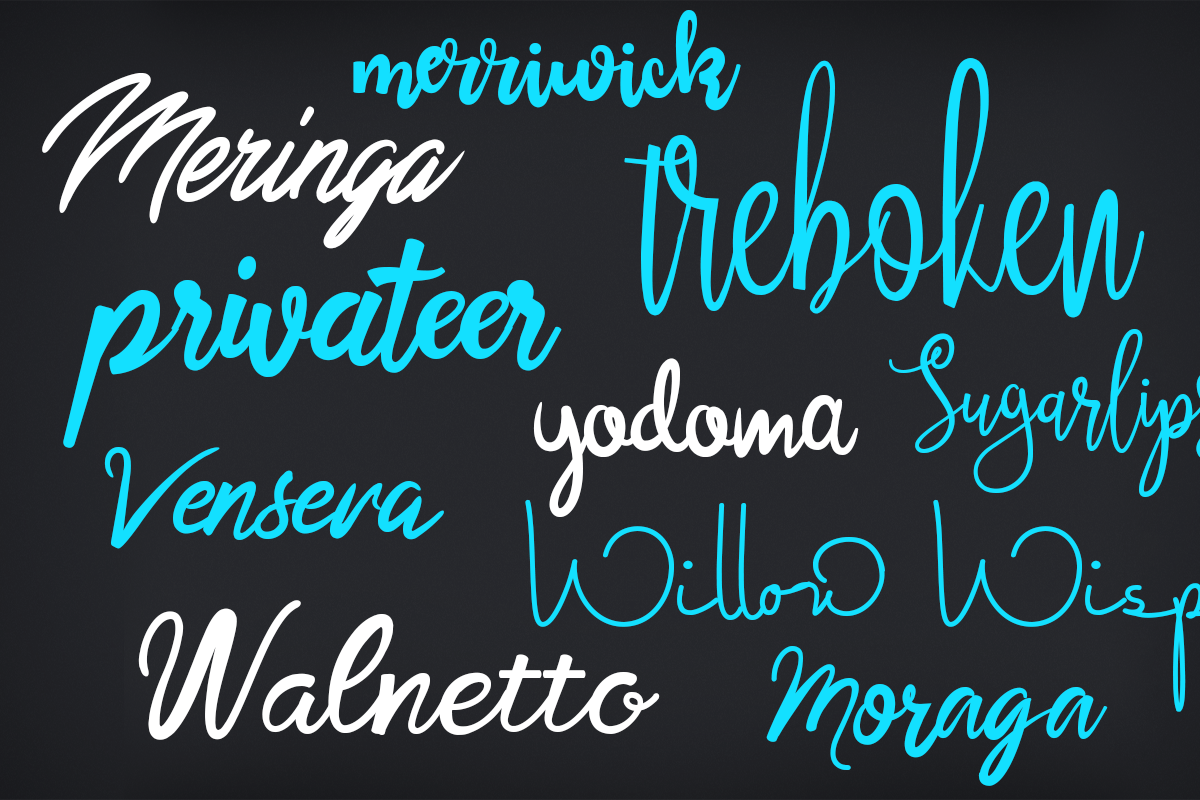
This comprehensive script font collection is perfect for wedding invitations, greeting cards, social media graphics, logo design, branding materials, book covers, packaging design, calligraphy projects, personal stationery, and elegant typography layouts. The diverse styles within this bundle make it suitable for both formal and casual design applications.
20 Script Fonts is exciting because it offers an entire library of handwritten styles in one convenient package, ranging from delicate feminine scripts to bold masculine letterforms. Each font maintains its unique personality while ensuring seamless compatibility with others in the collection. This variety eliminates the need to search for individual fonts and provides designers with instant access to multiple creative solutions.
The 20 Script Fonts family includes various weights, styles, and decorative elements across all twenty typefaces. Many fonts feature alternate characters, ligatures, swashes, and ornamental flourishes that enhance the natural flow of script lettering. The collection typically spans elegant calligraphy styles, casual handwriting fonts, and decorative script variations.
For designers seeking maximum creative flexibility and value, 20 Script Fonts Free Download provides an unmatched resource for script typography projects. This extensive collection ensures you'll always have the perfect script style for any occasion, from intimate personal projects to professional brand identities. The consistent quality and diverse range of styles make this bundle an essential toolkit for creating sophisticated, handcrafted designs that captivate audiences and convey authentic human touch across all creative mediums.